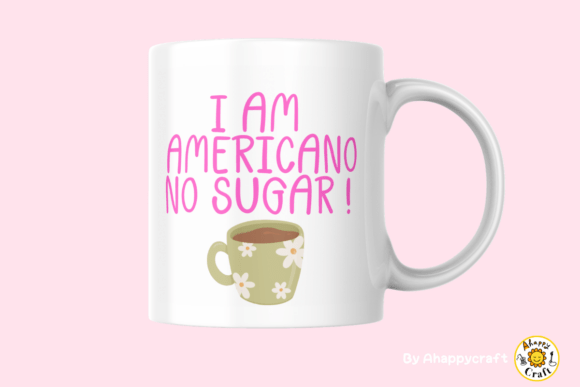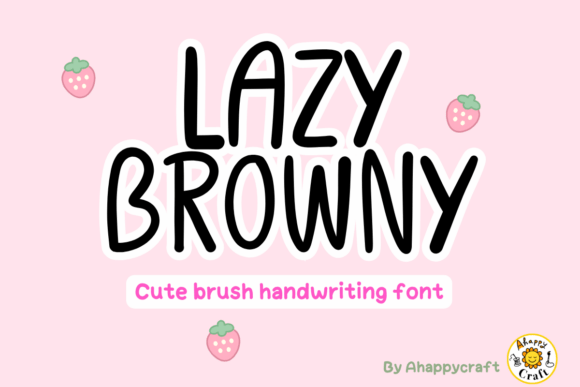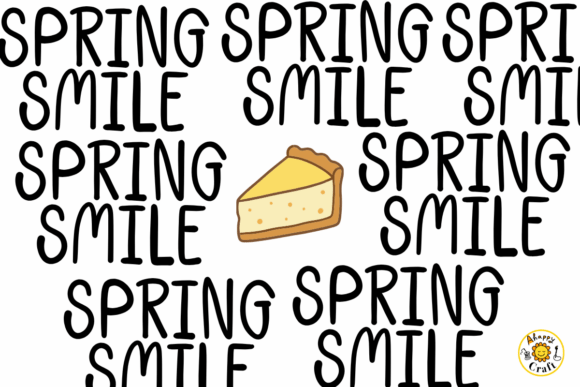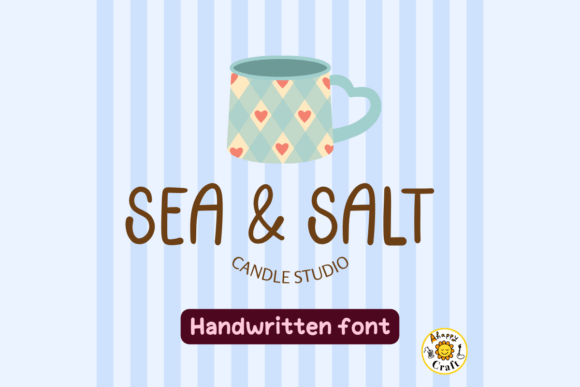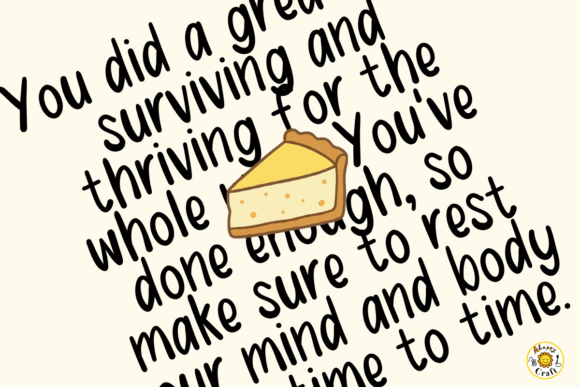
Introduction to Lazy Browny Font
Lazy Browny is a cute brush handwriting font with a playful and cozy style.
This adorable handwritten typeface features bold rounded letters and a fun doodle-inspired look, making it perfect for cute branding, childrenโs products, stickers, planners, social media posts, t-shirts, packaging, and Cricut or Silhouette projects Its sweet and friendly appearance adds a warm handmade touch to any design.